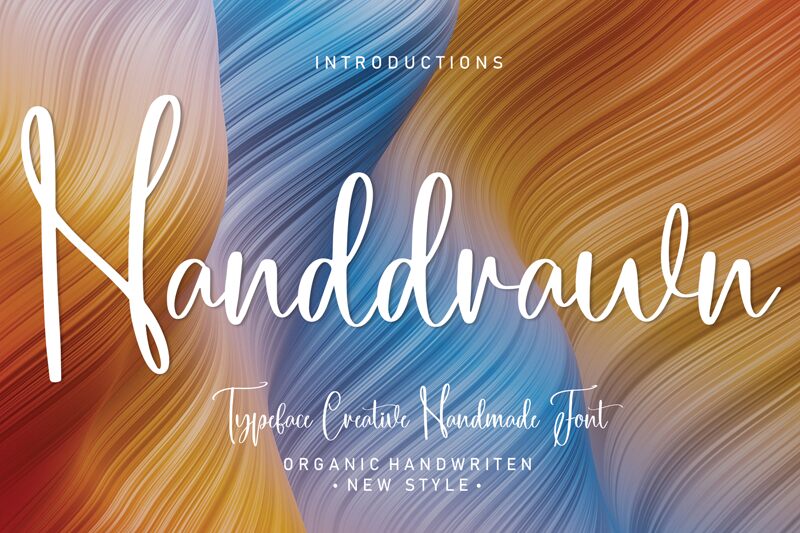
Handdrawn
Handdrawn font by Scratchones presents a delightful handwritten style that exudes warmth and personality. Its lively and fluid strokes give it an appealing, natural grace. The expanded script captures a playful elegance, making it ideal for projects that seek authenticity and charm.
This free font is perfect for creative designs, ranging from personal branding to event invitations. Whether you're crafting a logo or adding flair to social media graphics, Handdrawn’s distinctive character adds an inviting touch.